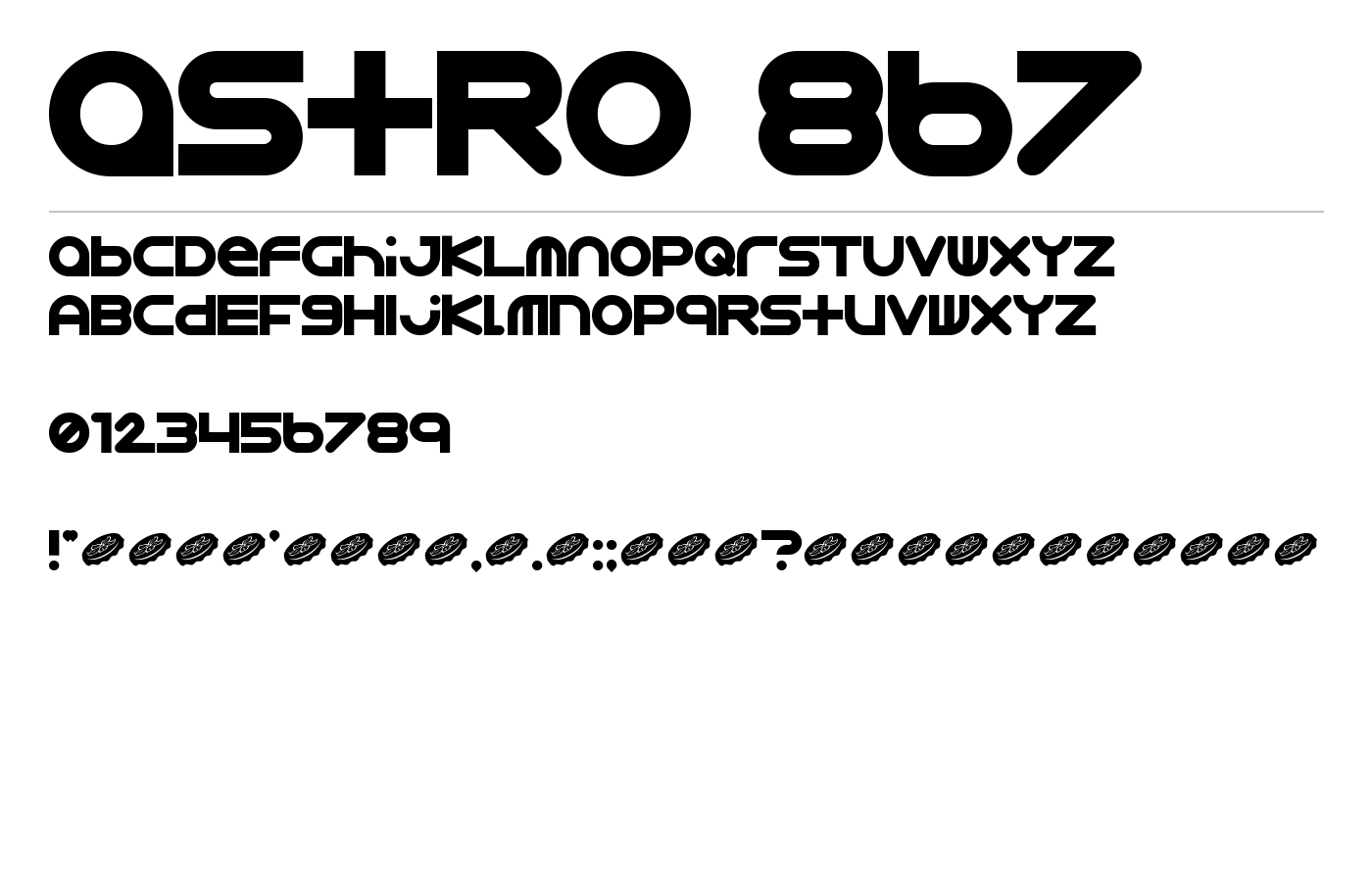
Astro 867 is a bold, geometric sans-serif font with a futuristic and playful vibe, characterized by its thick strokes, rounded shapes, and unique letterforms like the stylized "R" and open counters. Its compact width and consistent weight make it ideal for striking headlines, logos, and branding that aim to convey a modern, tech-inspired look. This font works best in designs where strong visual impact and a contemporary edge are desired.
Astro 867 Font